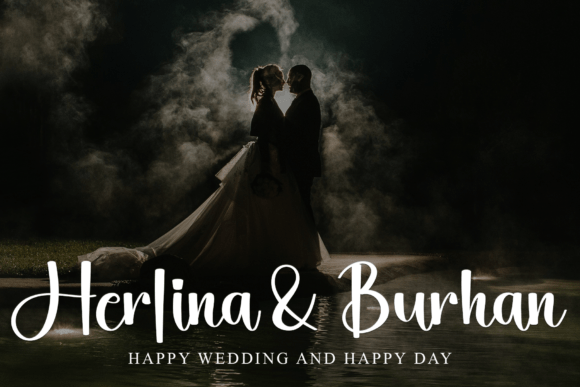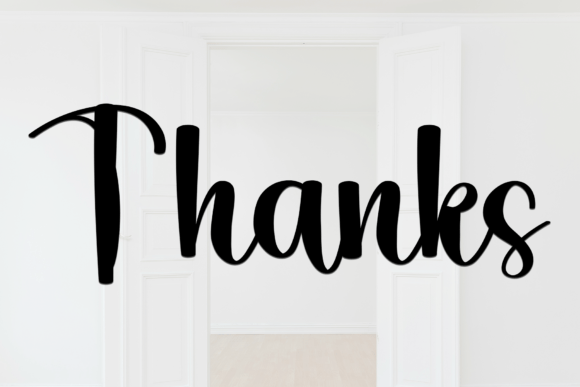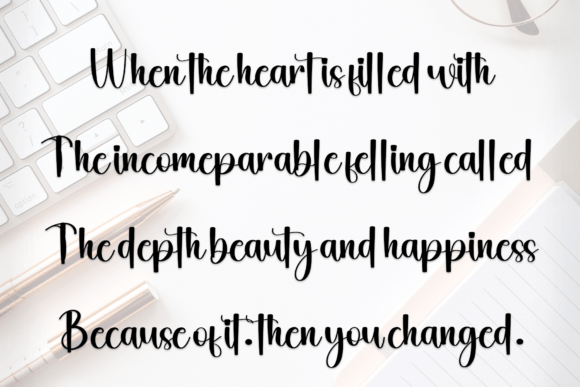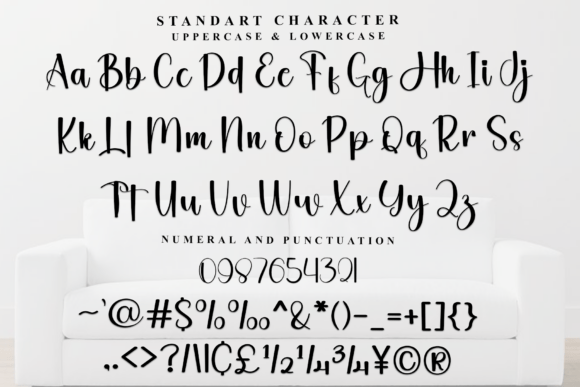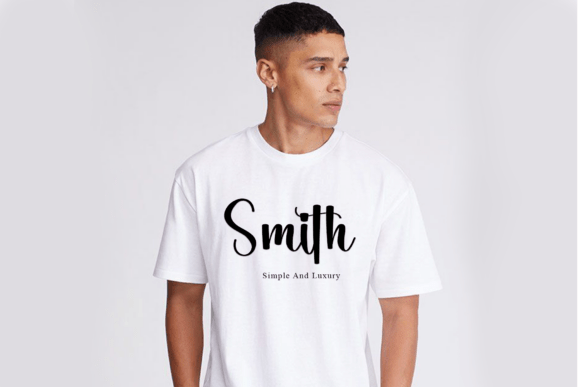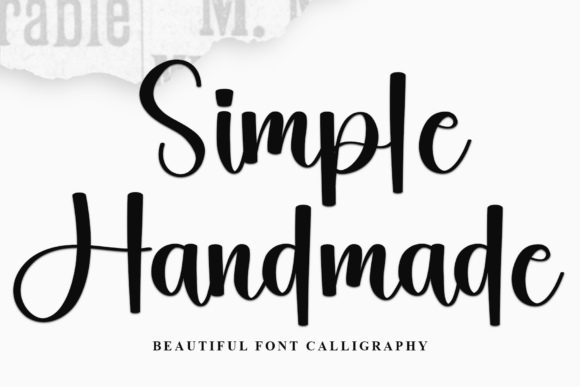
Introduction to Heybaby Font
As a designer, have you ever stumbled upon that one perfect font that just makes your creative project pop? For me, it was the moment I discovered the Heybaby Font – a beautiful and eye-catching typeface that adds a unique touch to any design. Its soft, natural strokes evoke a sense of warmth and approachability, making it a valuable addition to any designer’s toolkit.
With its versatility and compatibility with various applications, including Windows and open-source platforms, the Heybaby Font is an ideal design resource for creatives of all levels. Whether you’re working on a branding project, crafting a digital product, or simply experimenting with new ideas, this high-quality font is sure to enhance your designs and captivate your audience.
Key Features of Heybaby Font
- High-quality, unique font design perfect for creative projects requiring a personal touch.
- Perfect for designers looking for a unique, high-quality design resource to elevate their creative projects.
Honest Review: Heybaby Font
Heybaby Font is a unique addition to any design resource collection. I was pleasantly surprised by its creative and playful vibe, making it perfect for those looking to add some personality to their project.
- Unique and creative design style ✨
- Perfect for creative projects and branding
- High-quality font with crisp lines
- Not ideal for formal or corporate designs
Overall, I’m impressed with the Heybaby Font. It’s a great addition to any designer’s toolkit, and its unique style is sure to add a touch of personality to any creative project. While it may have some limitations, it’s definitely worth considering for your next design project.
The Heybaby Font is ideal for various creative projects, including social media graphics, presentations, posters, and flyers. It is also suitable for personal branding, logos, and custom typography for websites and apps.